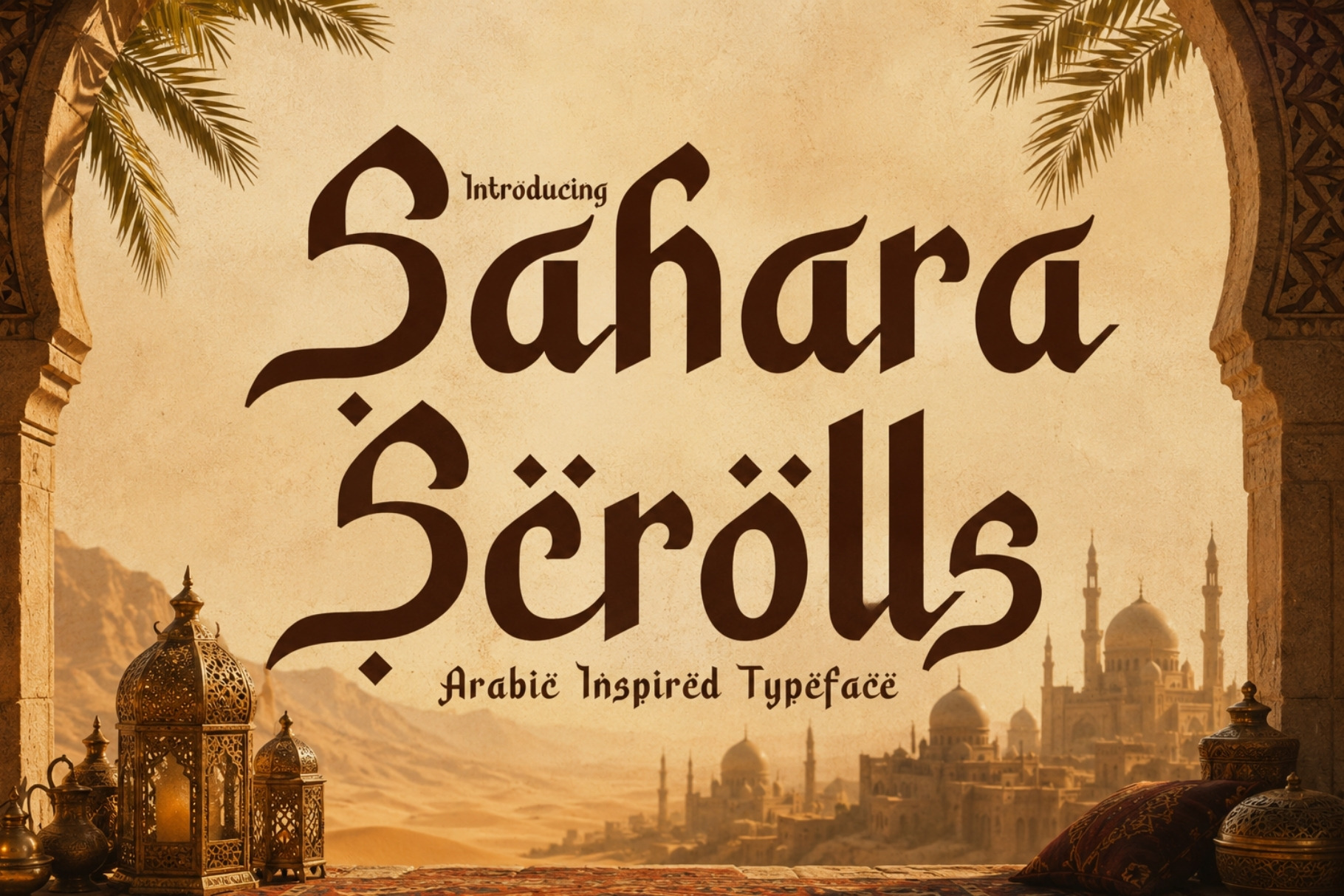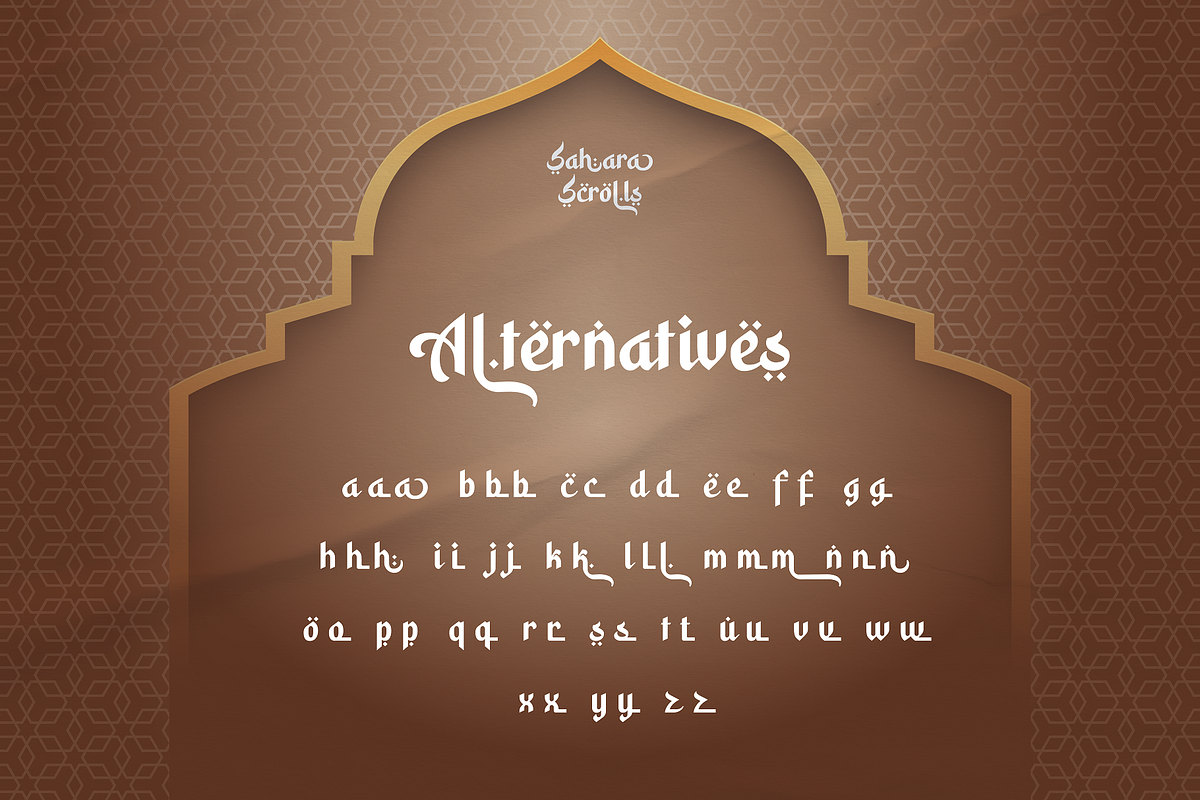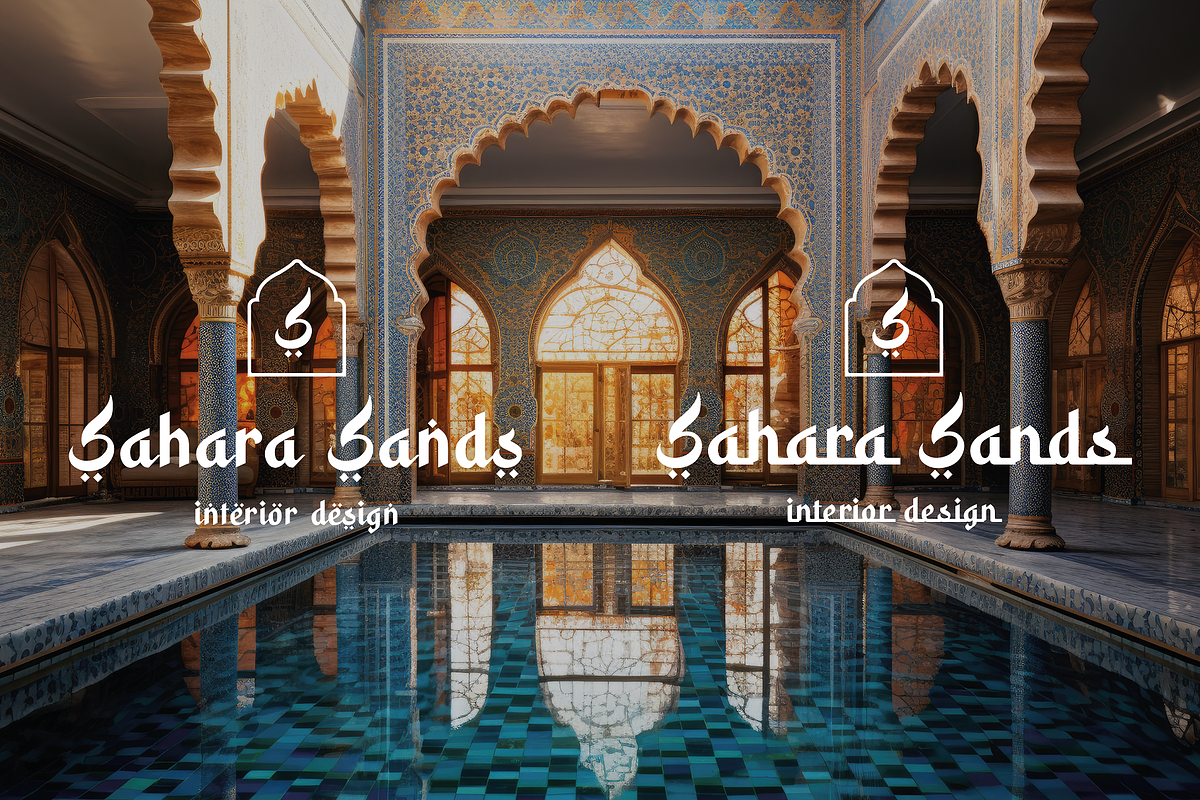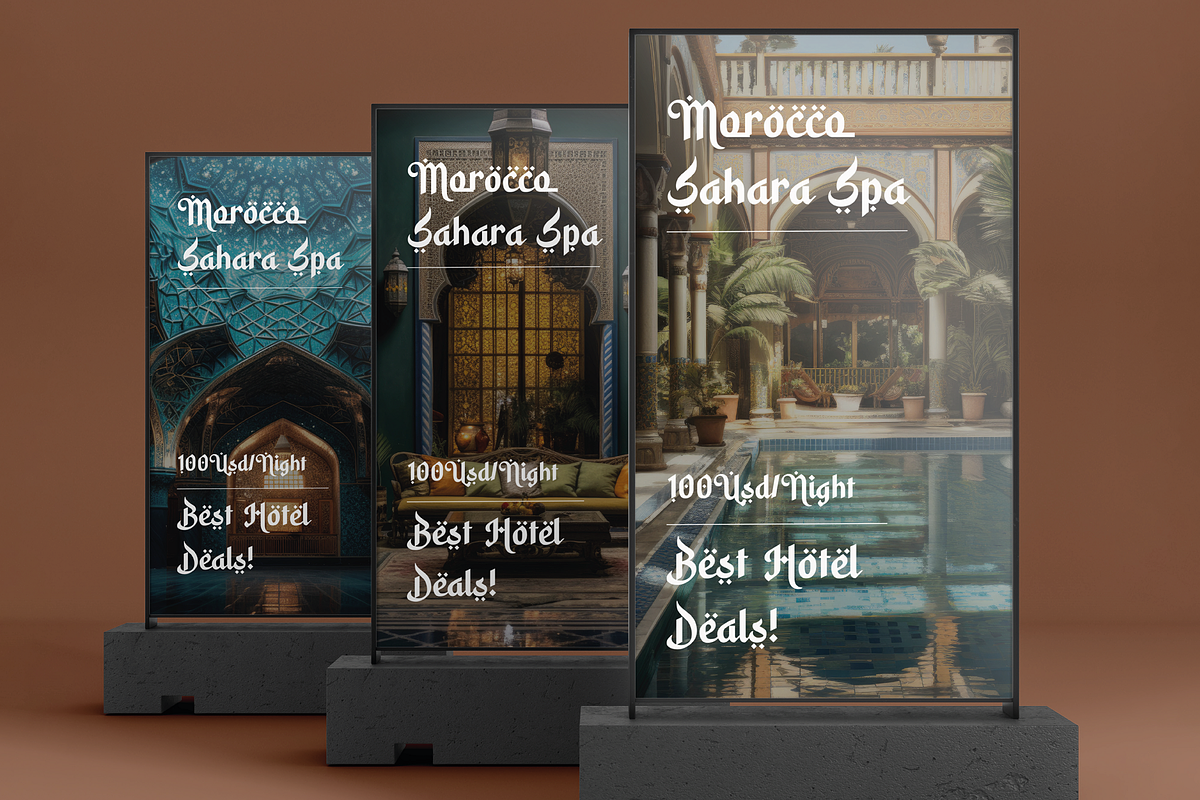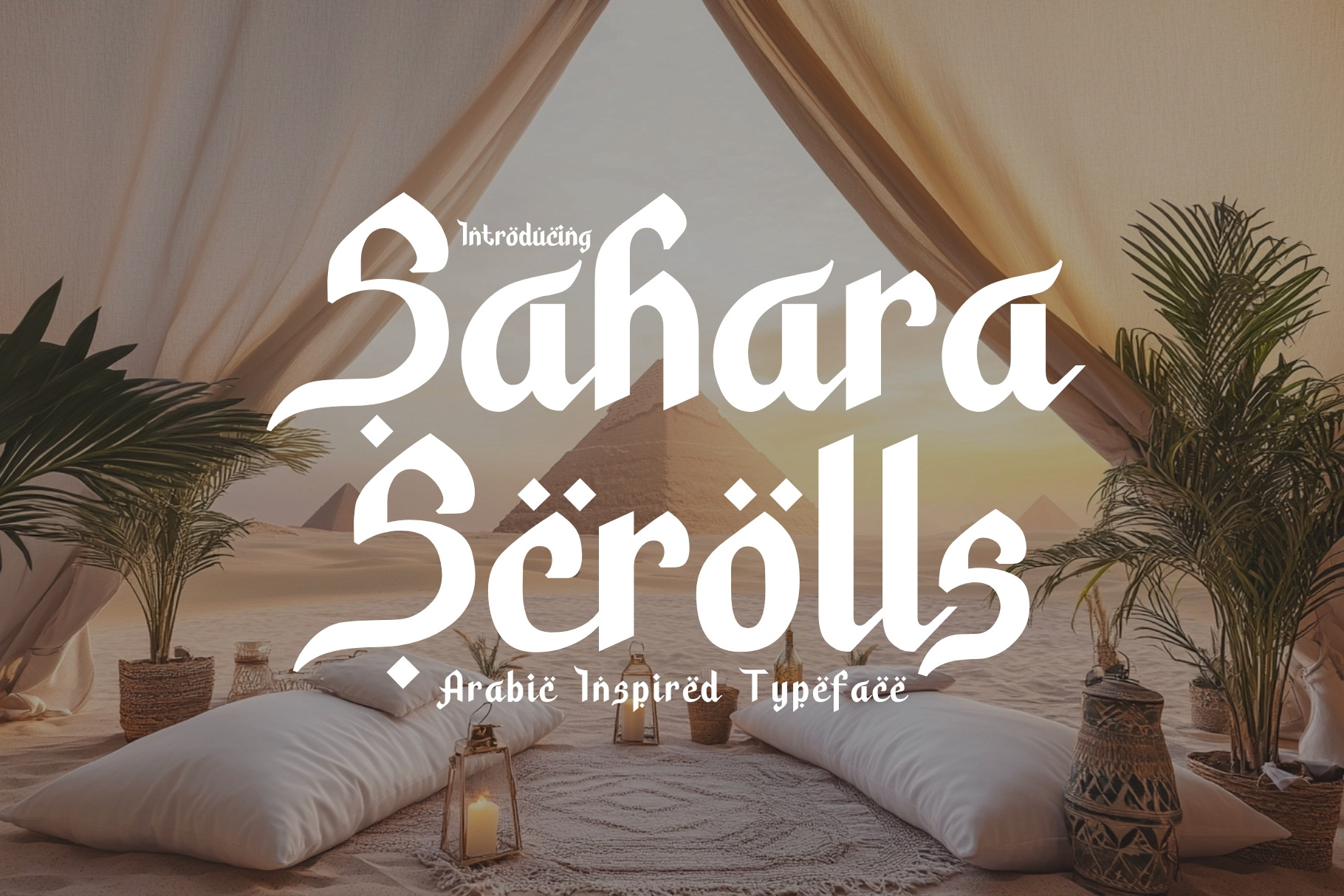
Sahara Scrolls - Arabic Typeface
Journey into the heart of the desert with Sahara Scrolls, an exquisite typeface that encapsulates the ornate beauty of traditional Arabic calligraphy. Drawing inspiration from the rich tapestry of Middle Eastern culture, this decorative font melds the flowing elegance of classical scripts with contemporary design sensibilities.
Every character in Sahara Scrolls is a testament to the timeless art of calligraphy, echoing the intricate motifs and patterns found in ancient manuscripts, mosques, and palaces. The typeface, with its delicate swirls and refined flourishes, evokes tales of golden dunes, starlit nights, and caravans meandering through ancient trade routes.
Sahara Scrolls is not just a font; it's an artistic voyage. Ideal for projects that require a touch of opulence and mystique, its distinct style makes it perfect for branding, invitations, book covers, and any design endeavor that seeks to celebrate the fusion of history and art.
Dive deep into the mesmerizing world of Sahara Scrolls, and let your designs resonate with the poetic beauty and heritage of the Arabic world.